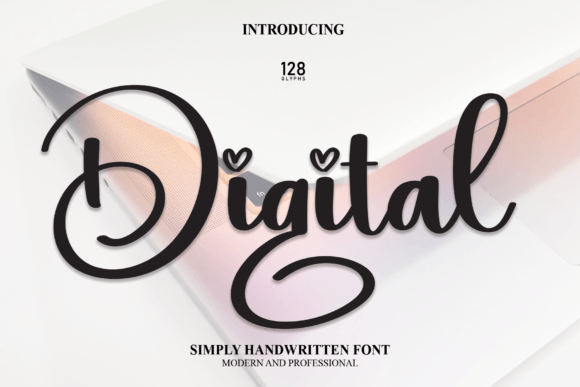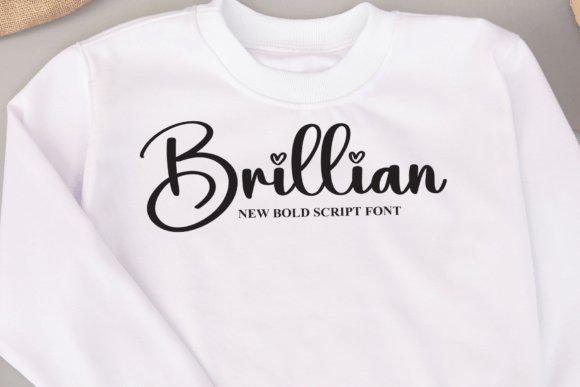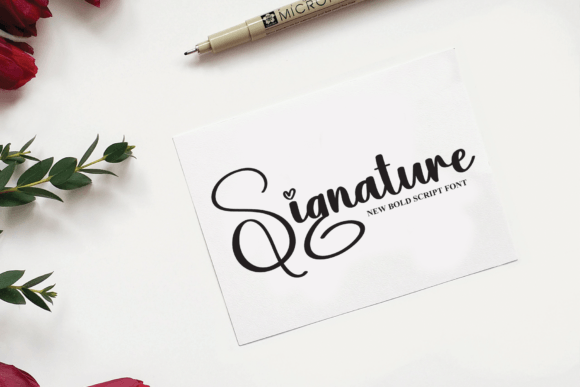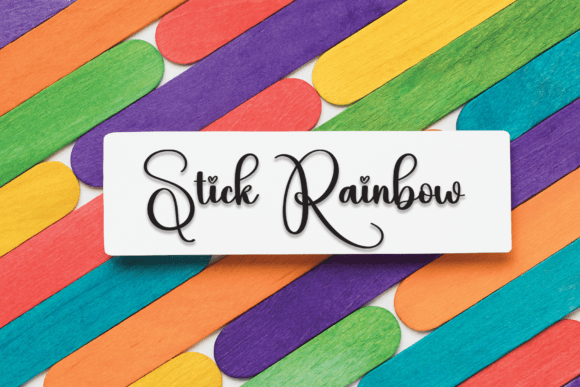
Digital Font: Sweet Cursive Script for Wedding & Branding Designs
About the Digital Font
Add a touch of class to your work with the Digital Font, a truly exceptional typeface. Digital is a sweet and cursive handwritten font. This gentle font will look gorgeous on a variety of design ideas. It will add a joyful and romantic touch to each of your projects!  Perfectly fit for branding, logo, wedding things, greeting cards, fashion, lookbook, marketing promotion, anytime you want to look fancy elegant but still casual.
Digital’s delicate cursive style shines in applications requiring a touch of romantic charm. It’s ideal for headlines, short text blocks on branding materials, invitations, and packaging where its elegant handwritten feel adds personality. Avoid using it for large bodies of text or UI elements; its cursive nature hinders readability in extended use.
Pair Digital effectively with a clean sans-serif like Open Sans for a balanced contrast, or a geometric sans-serif such as Futura for a more modern feel. For a slightly more formal touch, consider pairing it with a classic serif font like Garamond.
The overall personality of Digital is soft, romantic, and friendly, making it perfect for brands associated with femininity, handcrafted goods, or events emphasizing intimacy and celebration.
Digital Font Usage Examples
Digital Font Example